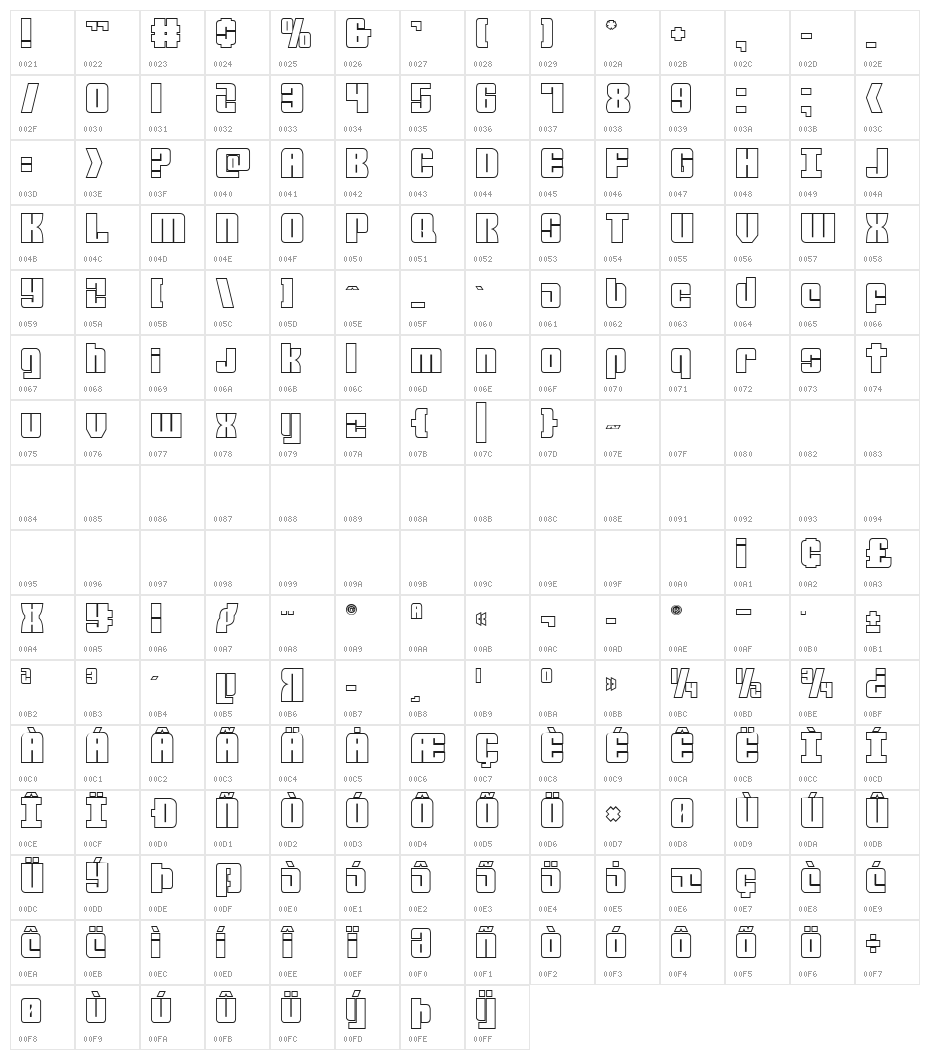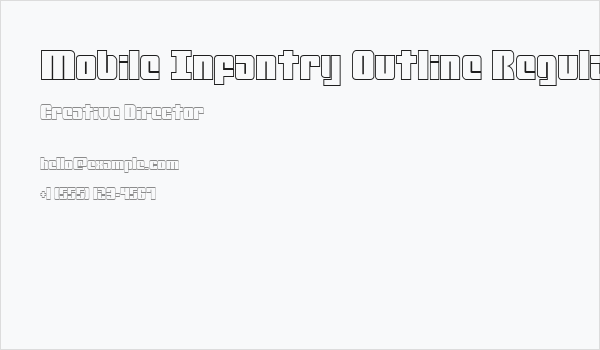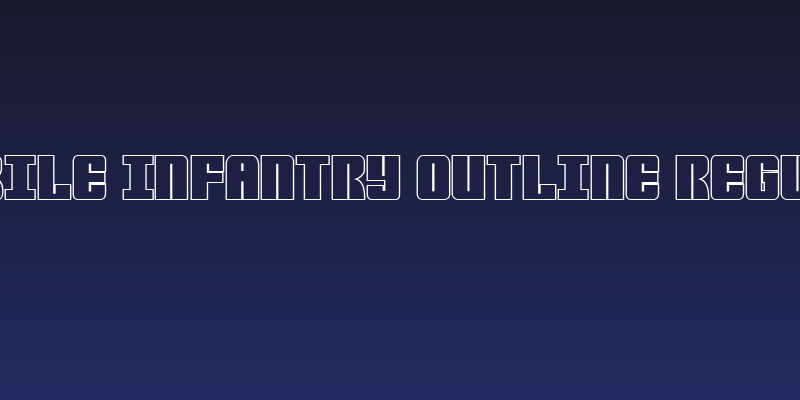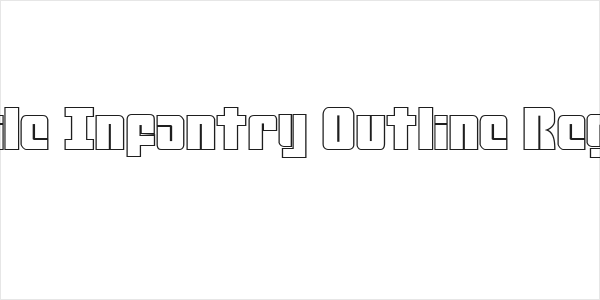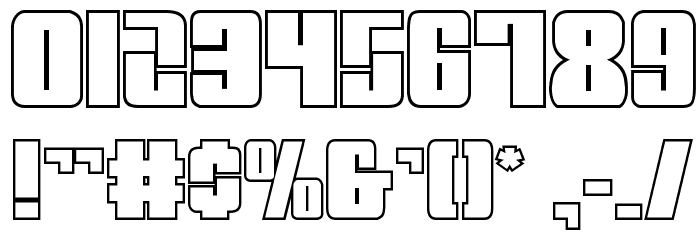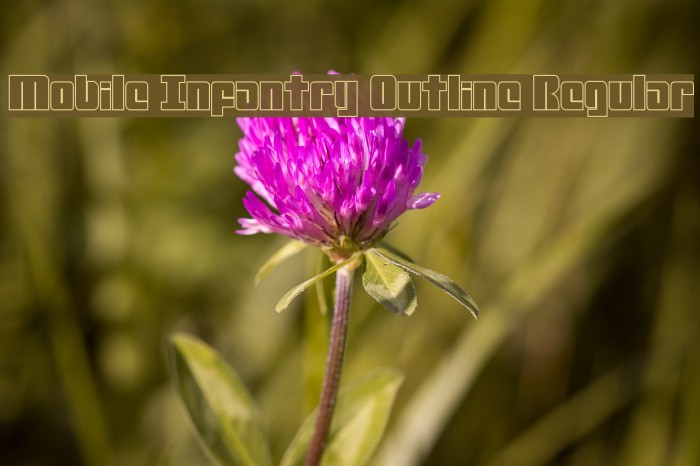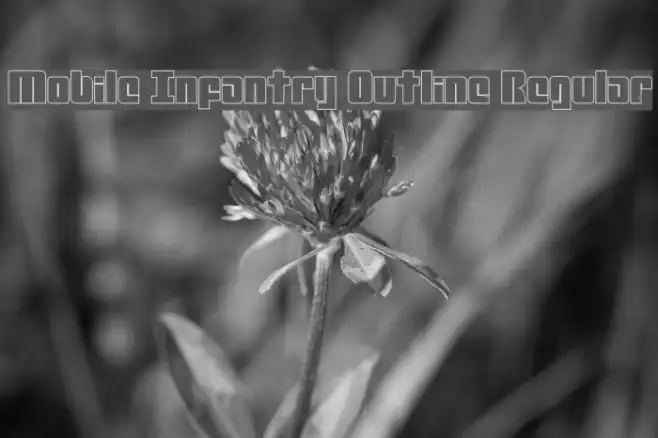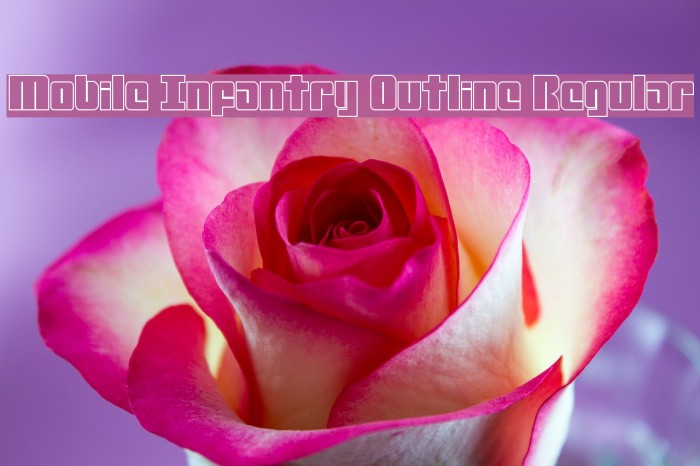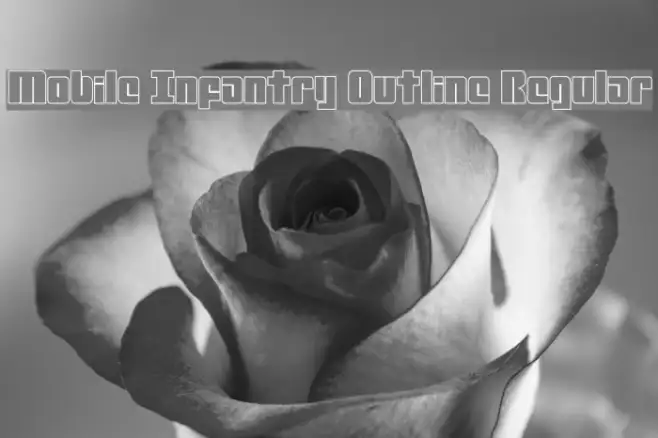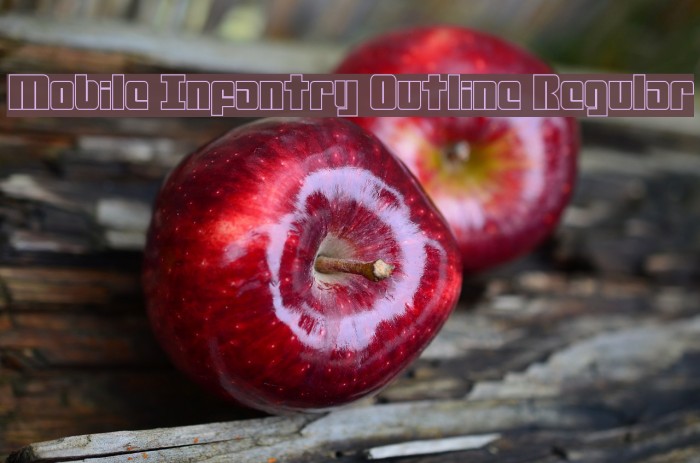
Mobile Infantry Outline Regular Font
Mobile Infantry Outline Regular Description
This font features a bold, geometric outline style with a futuristic and industrial feel. The characters are constructed with thick, uniform lines that create a strong visual impact. The uppercase and lowercase letters maintain a consistent height, giving the font a monospaced appearance. The numerals and special characters are designed to match the boldness and geometric nature of the alphabet, ensuring a cohesive look across all characters. The overall design is clean and modern, making it suitable for projects that require a strong, attention-grabbing typeface.
| Proposed Projects | Ideal for sci-fi themed designs, video game graphics, posters, and branding that requires a modern, bold look. |